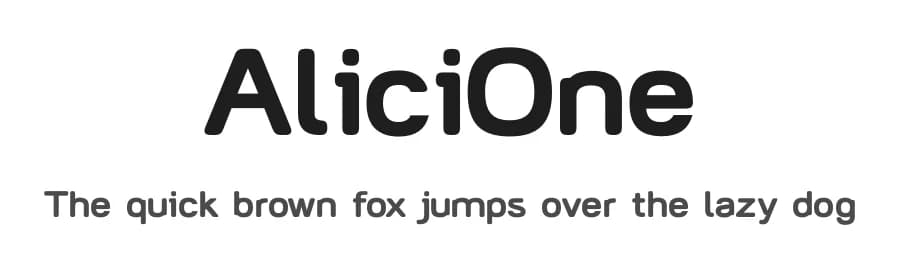
About AliciOne Font
- Heavy, Clean, Modern, Basic
AliciOne supports 91 languages.
AliciOne Font is a versatile sans-serif font that works for both headings and body text. Pair it with a contrasting serif or slab serif font to add visual interest and a clear distinction between titles and body copy.
AliciOne Font